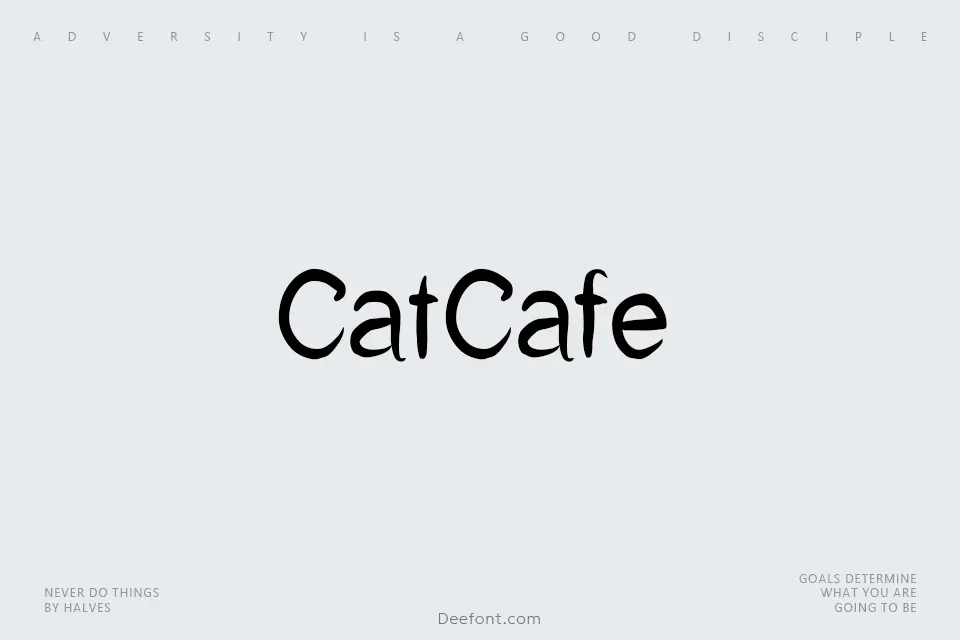
CatCafe Font
CatCafe is a charming handwritten font that combines playful brush strokes with smooth, flowing curves. Designed by Shara Weber, this whimsical typeface features bold, rounded letterforms with an informal, artistic character. Perfect for creating eye-catching display headlines, decorative posters, branding projects, and creative signage. The font’s casual elegance and cheerful aesthetic make it ideal for cat-themed designs, cafe logos, party invitations, and any project requiring a friendly, approachable typographic voice.